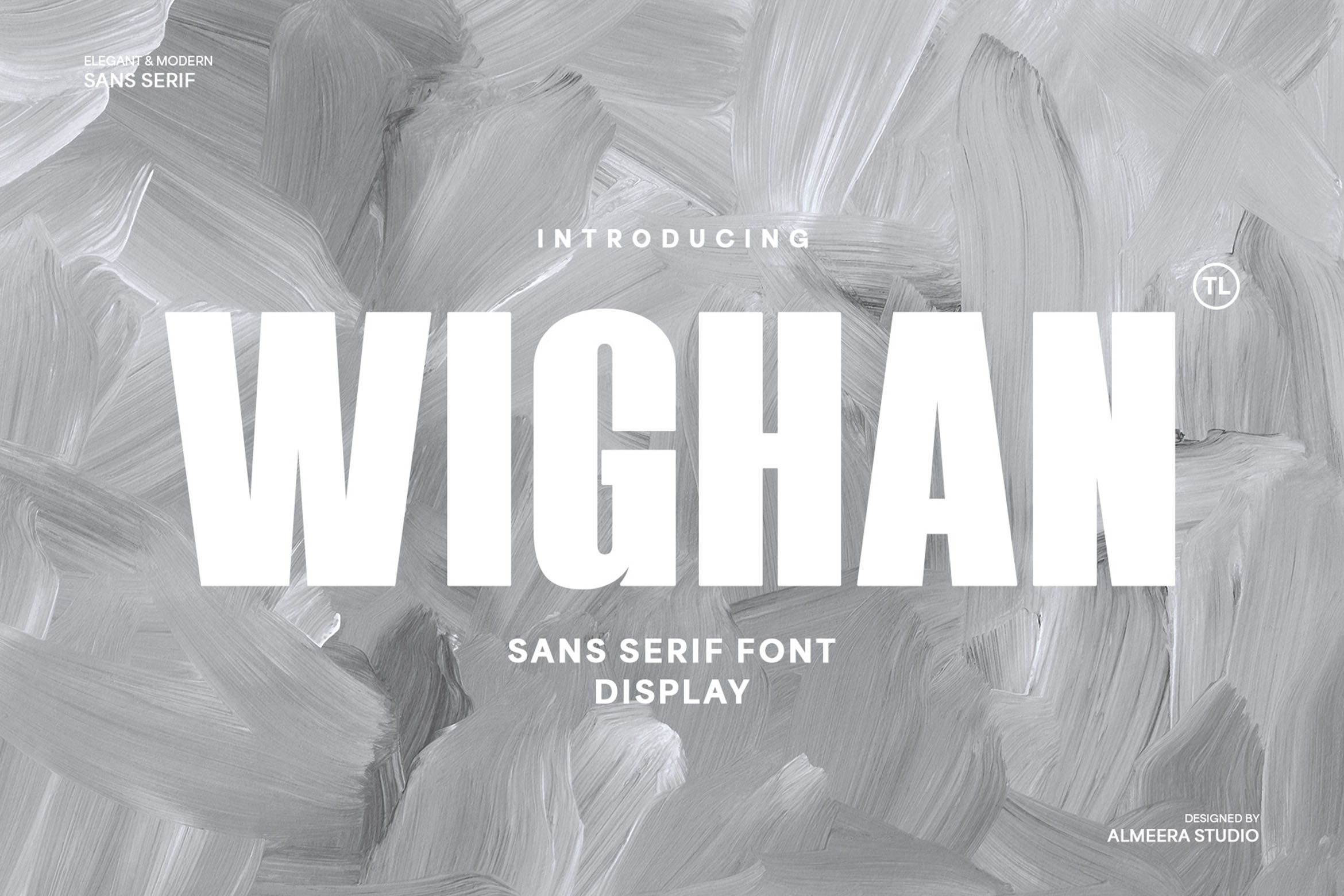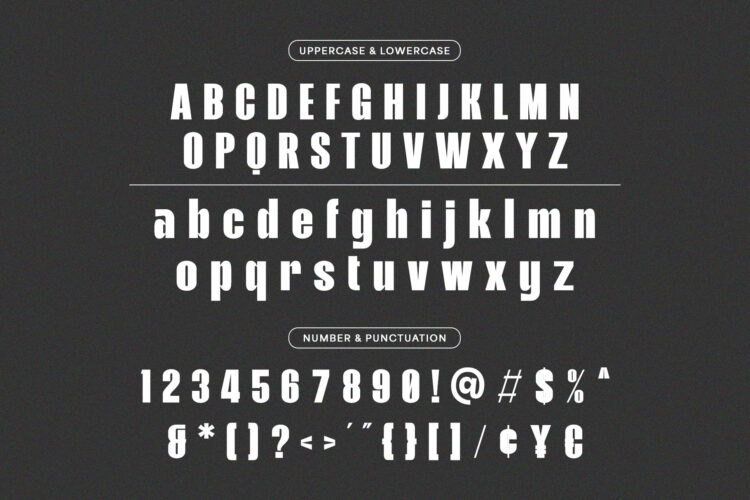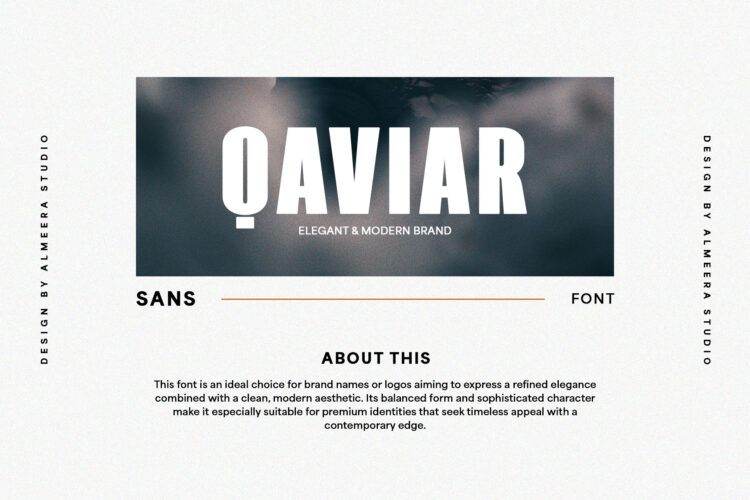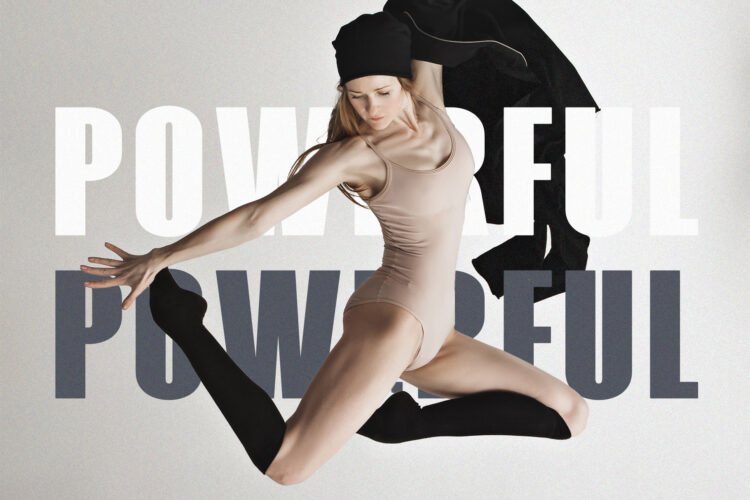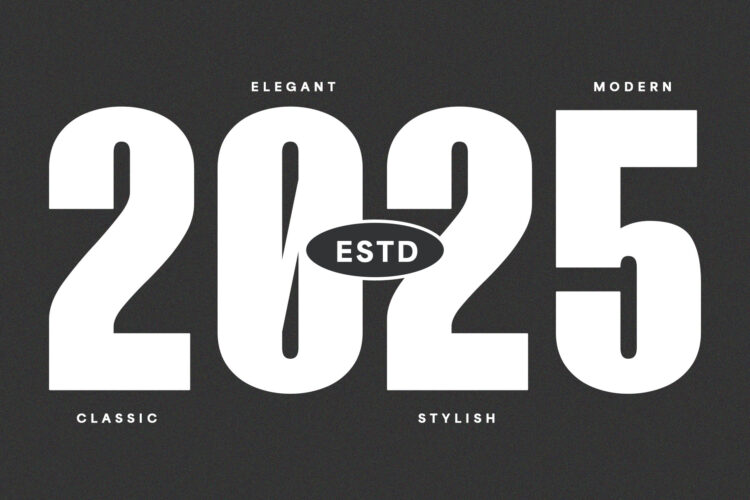
Meet TL Wighan, a powerful and elegant sans serif font designed for maximum impact. This contemporary display typeface is perfect for bold headlines, modern branding, striking logos, and any project demanding a strong visual presence. Wighan’s clean lines and robust character make it exceptionally versatile and highly readable, ensuring your message cuts through with clarity and style. Whether you’re crafting a cutting-edge website or a captivating poster, Wighan offers the perfect blend of minimalist sophistication and undeniable strength. Elevate your typography with Wighan, the go-to font for designers who want to make a statement.
– Numerial
Wighan – Bold & Modern Sans